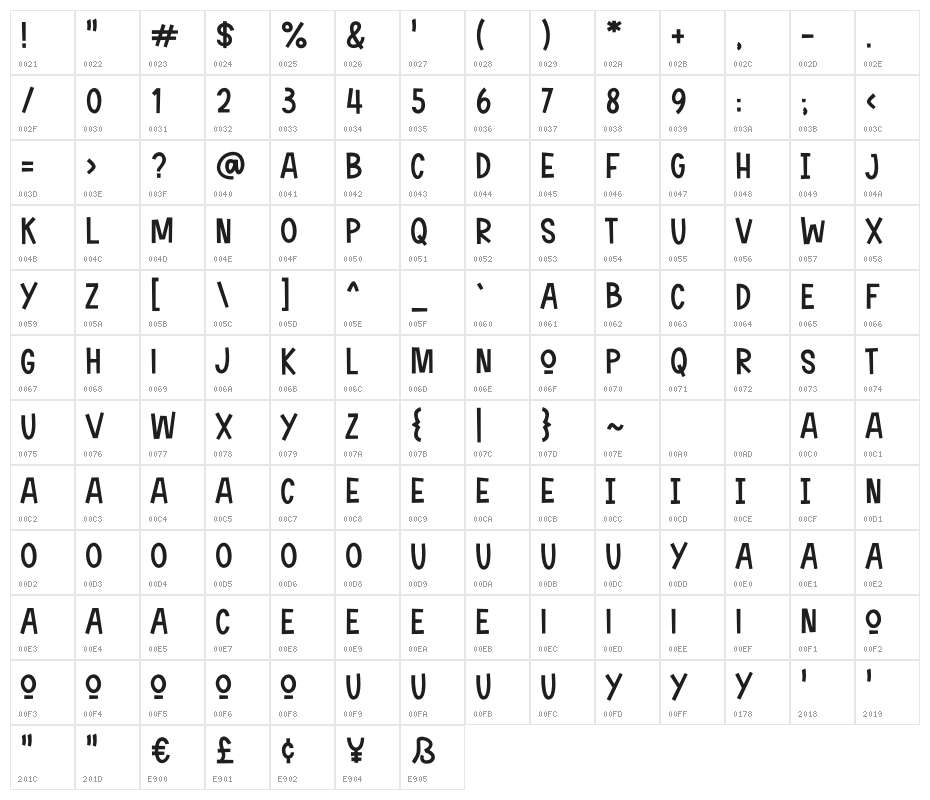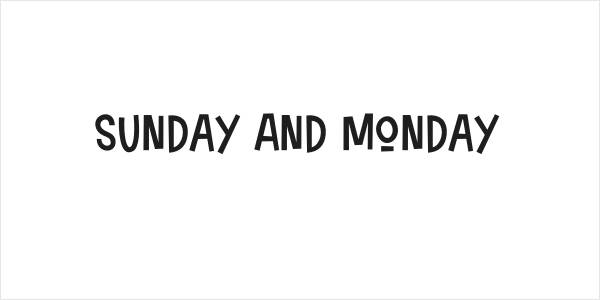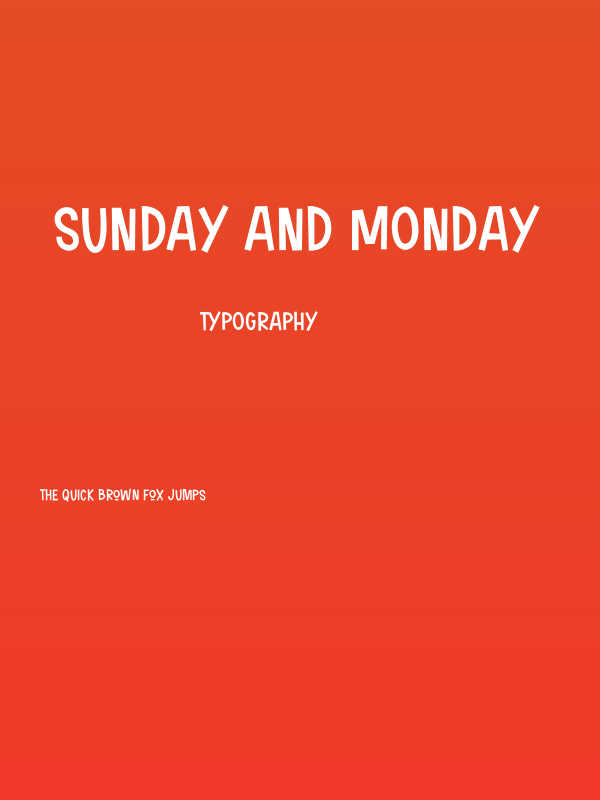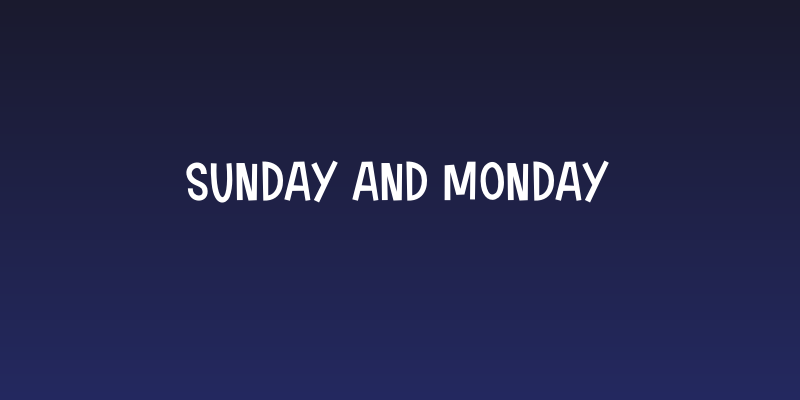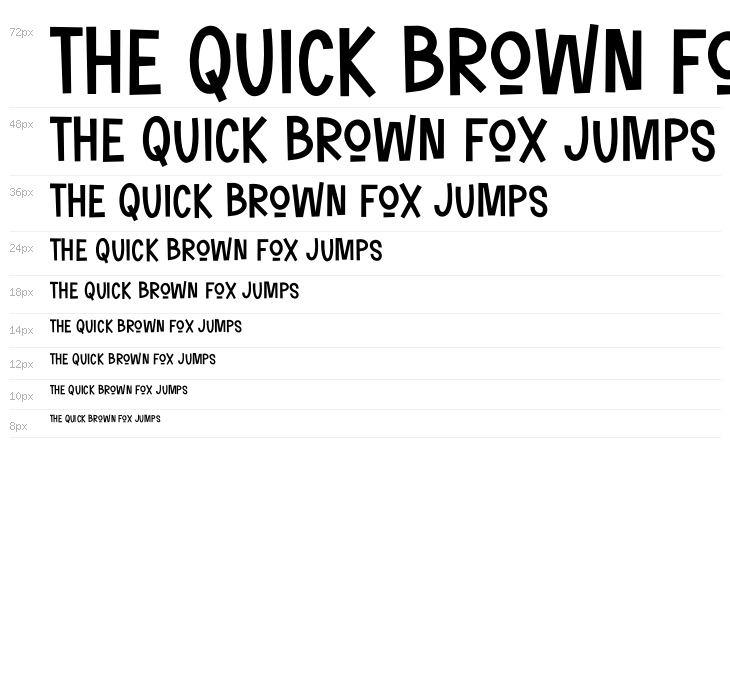
Sunday And Monday Font
Sunday And Monday Description
This font features a playful and bold design with a slightly irregular and hand-drawn appearance. The characters are uppercase and lowercase letters, numbers, and a variety of special symbols. The strokes are thick and consistent, giving the font a strong presence. The overall look is casual and friendly, making it suitable for informal and creative projects. The spacing between characters is normal, allowing for easy readability while maintaining a lively aesthetic. This font is ideal for projects that require a touch of whimsy and personality.
| Overall Style | Playful, Casual |
| Use Case | Headlines, Posters, Branding |
| Proposed Projects | Great for children's books, posters, greeting cards, and playful branding. |